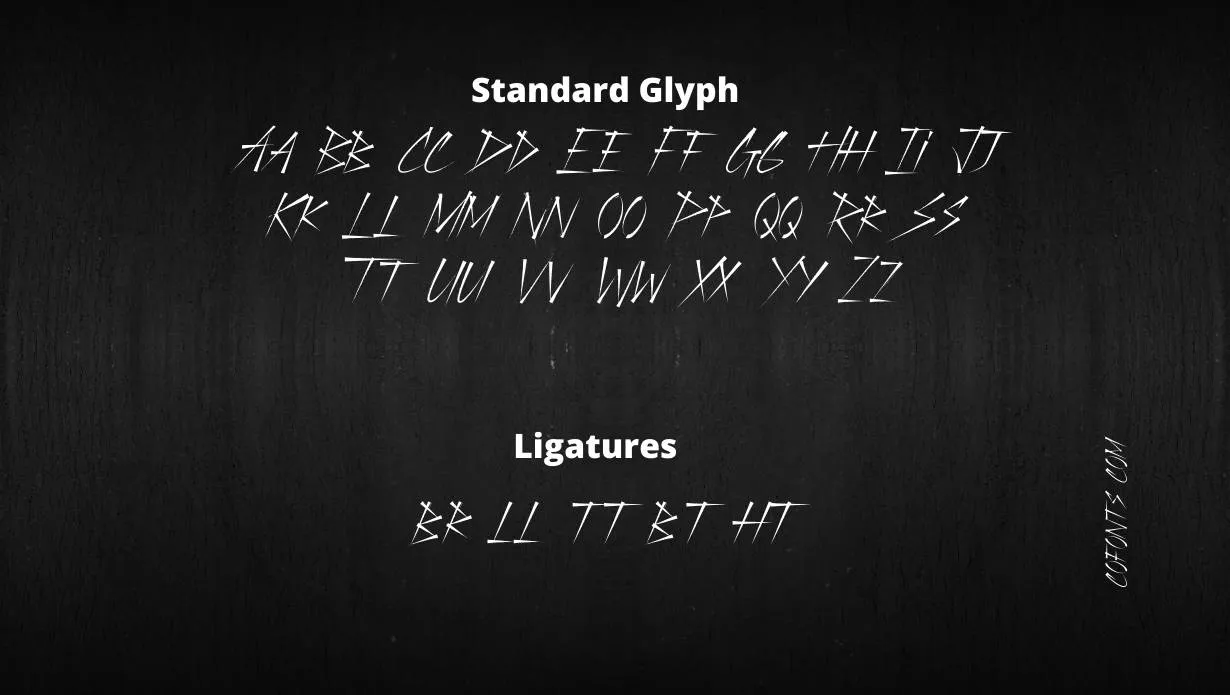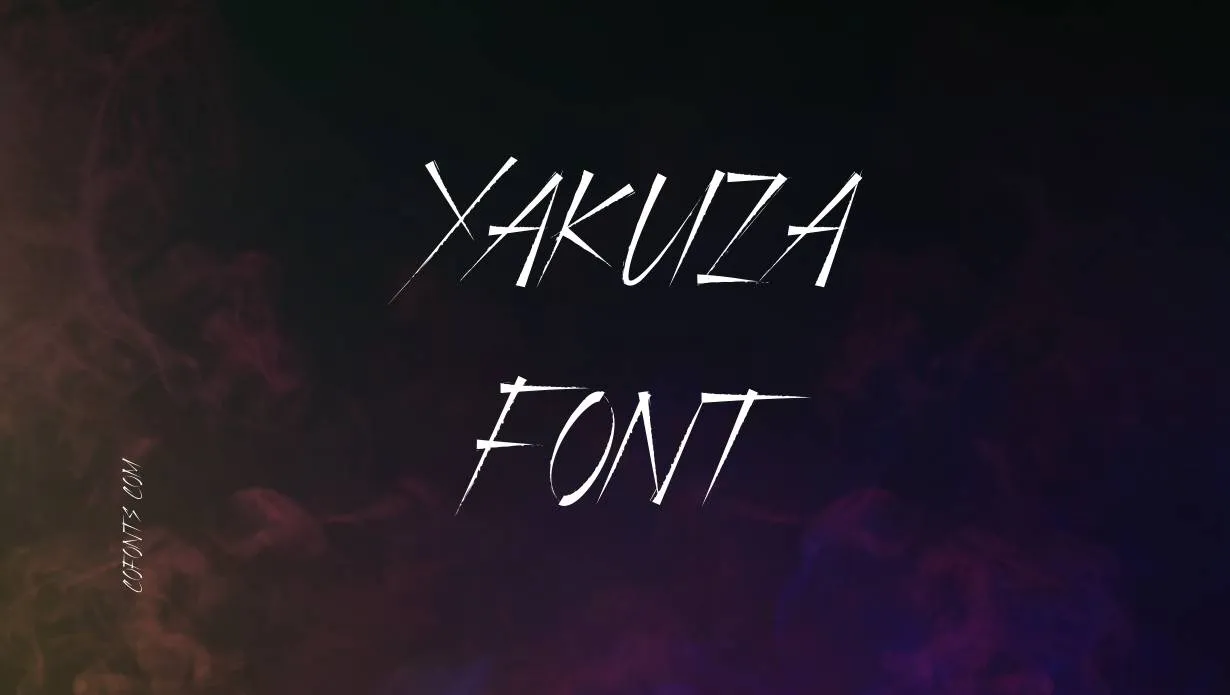
Yakuza Font is a rich typeface and claims a lot of prevalence everywhere throughout the globe. It is been utilized in the “Worldwide Typeface Corporation” (ITC) logo which is a world-known Font foundry. This font is also called yakuza 0 hd font.
Yakuza Font comes into its current shape after numerous updations. Having enamoring glimpses and immense dialects bolster this beautiful typeface comes into the cognizances of some sharp fashioners before organizing a creative format. Numerous fashioners anticipate it you may be one of them.
Hinting significant adaptability and an assortment of kens this showcase Lambretta Font textual style is perfect for making any sort of logo structures, printing purposes, books covers, pamphlet covers, pennant plans and other related tasks. Utilizing it for heading tracks will likewise be an objective methodology.